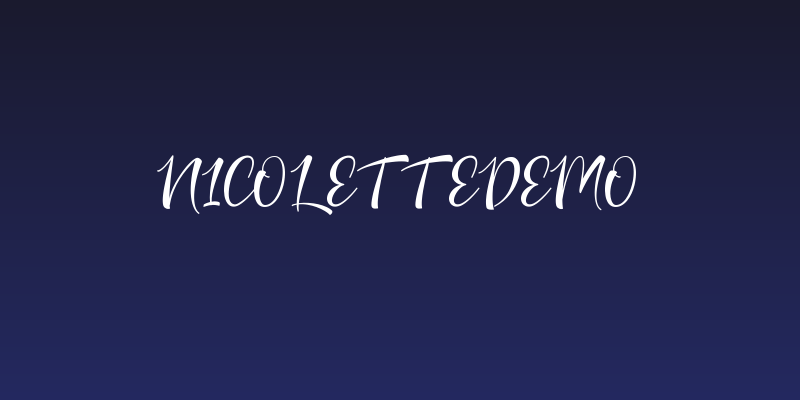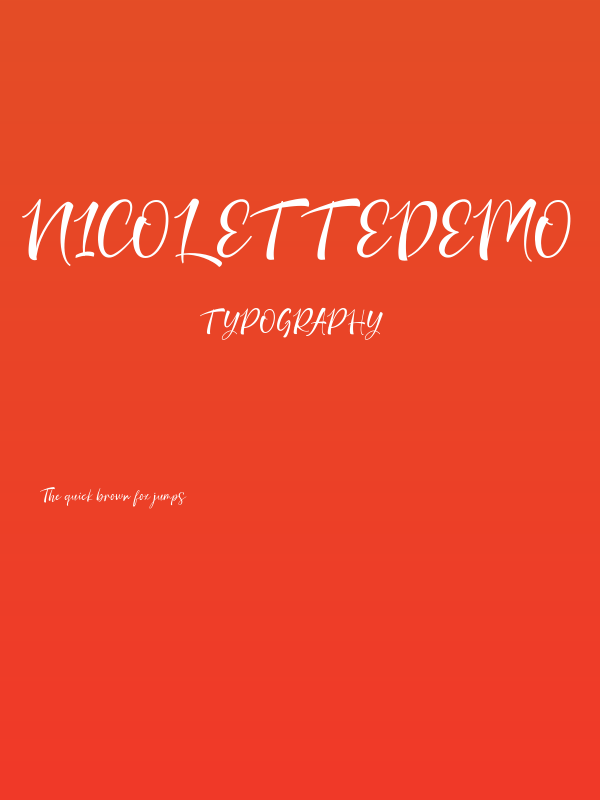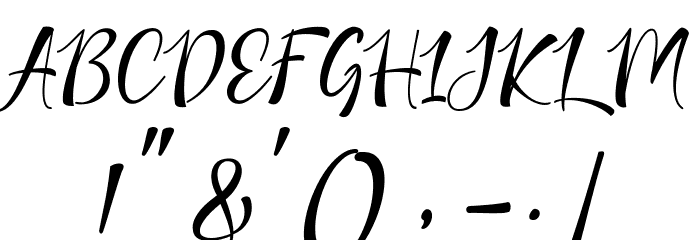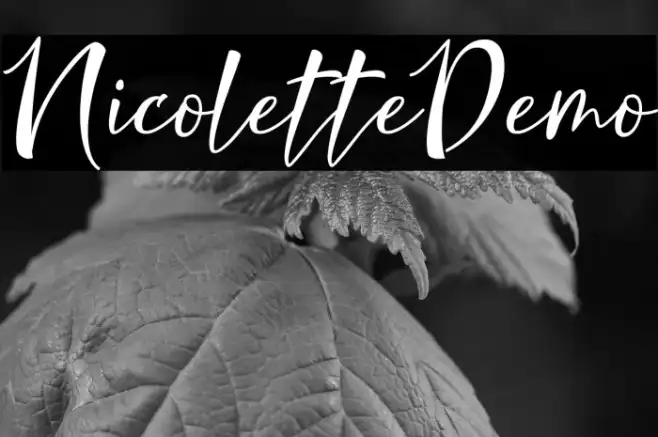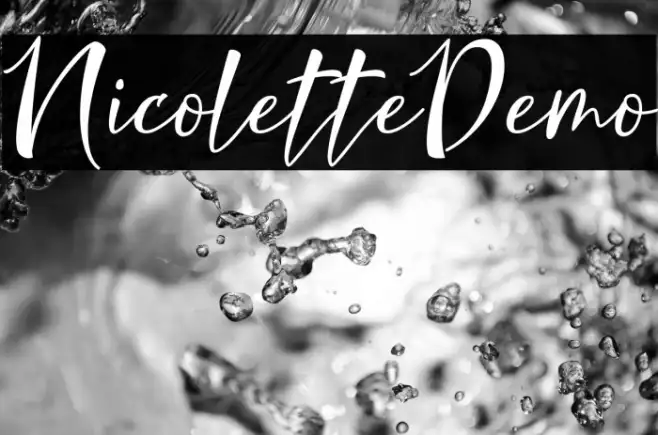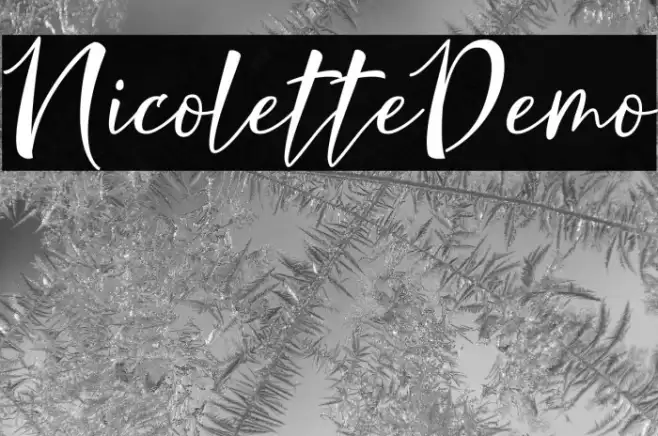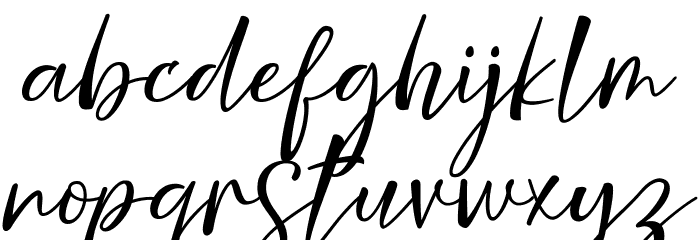
NicoletteDemo Font
NicoletteDemo Description
This elegant script font features a fluid and dynamic style, characterized by its sweeping curves and graceful lines. The uppercase letters are bold and slightly elongated, while the lowercase letters maintain a consistent flow with a touch of whimsy. The font exhibits a natural handwritten feel, with varying stroke thickness that adds a lively and personal touch. The characters are well-spaced, allowing for readability while maintaining an artistic flair. This font is perfect for projects that require a personal and creative touch, such as invitations, greeting cards, or branding materials.
| Proposed Projects | Ideal for invitations, greeting cards, branding, and creative projects. |